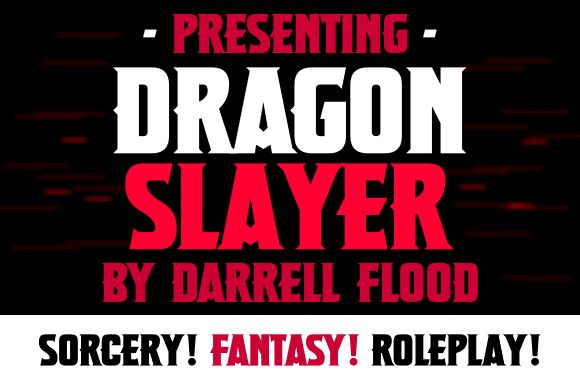
Dragon Slayer Italic
Discover the fierce aesthetic of Dragon Slayer Italic, a font that embodies the spirit of adventure with its gothic roots and modern flair. Designed by Hawtpixel, this member of the Dragon Slayer family stands out with its bold weight and condensed width, making a statement on any canvas. Its sharp edges contrasted by smooth curves create an enigmatic presence that captures the imagination.
Dragon Slayer Italic is not just a typeface; it's an invitation to craft tales of valor and fantasy. The angular cuts evoke images of legendary battles and mystical realms, ideal for projects that require a touch of epic grandeur. From gaming interfaces to movie posters, book covers to branding campaigns—this font is tailored for creators seeking to infuse their work with mythic power. Let Dragon Slayer Italic be your ally in enchanting your audience and carving your narrative into the annals of design history.